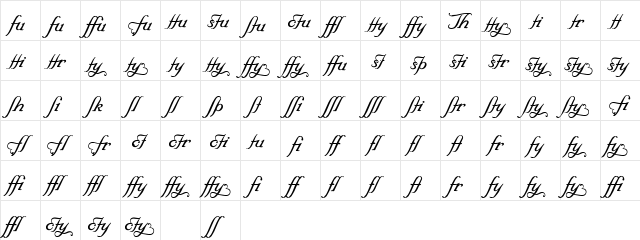
ElegeionScriptLigatures Regular
Design Context for ElegeionScriptLigatures Typeface
ElegeionScriptLigatures brings a calligraphic fluidity to the page — its connecting strokes and expressive curves give it an unmistakably human quality.
Font Pairing: Combine ElegeionScriptLigatures with a simple geometric sans for maximum contrast — the tension between flowing curves and clean structure is a classic typographic pairing.
Pro Tip: Pair ElegeionScriptLigatures with a clean sans-serif for supporting text. The contrast between fluid script and geometric structure creates an elegant typographic hierarchy.